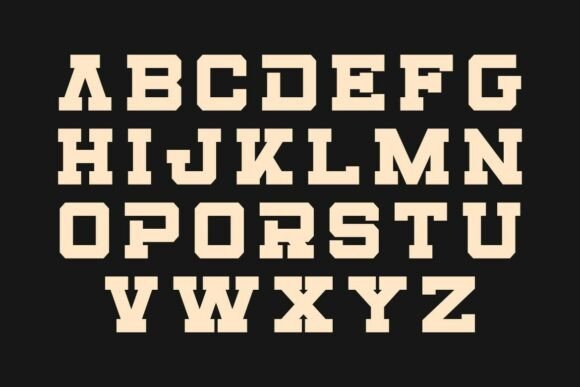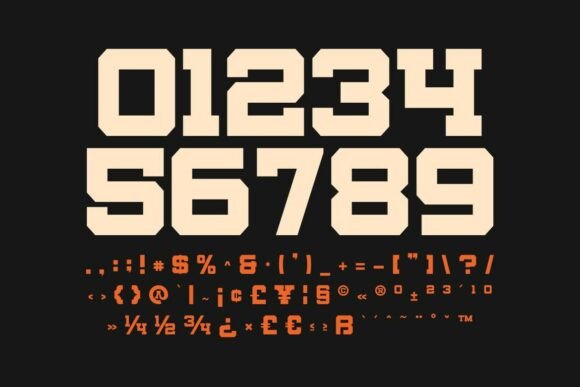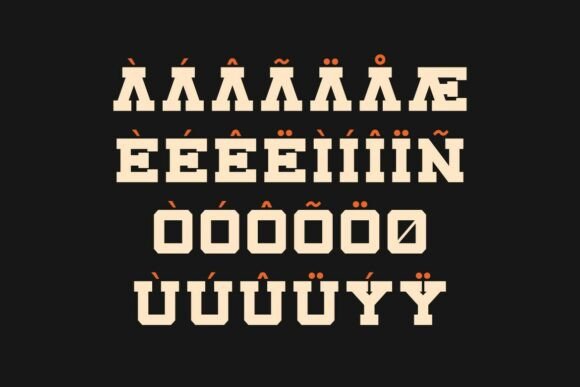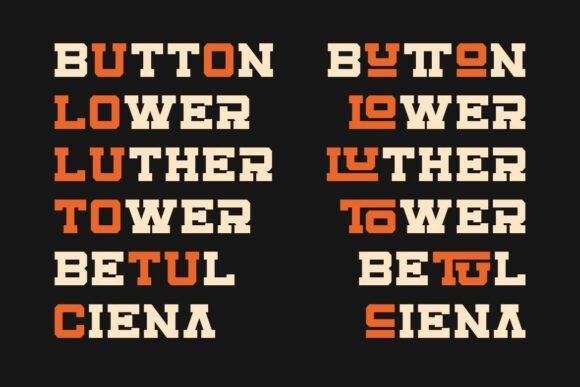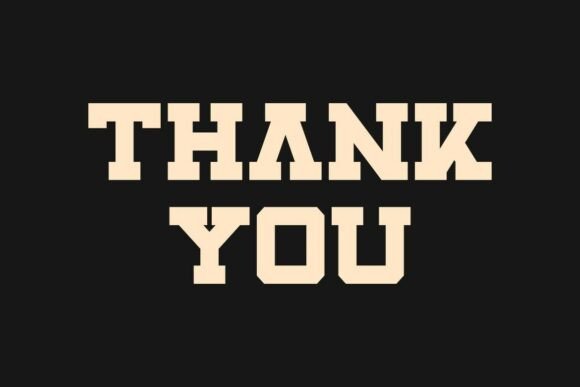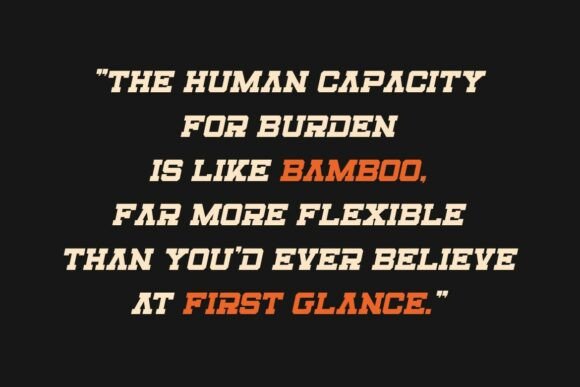
Introduction to Mooda Font
Mooda is a bold slab serif typeface designed to deliver strength, stability, and strong visual impact.
With thick strokes, solid slab serifs, and confident letterforms, Mooda creates a powerful presence in any design .
Key Features of Mooda Font